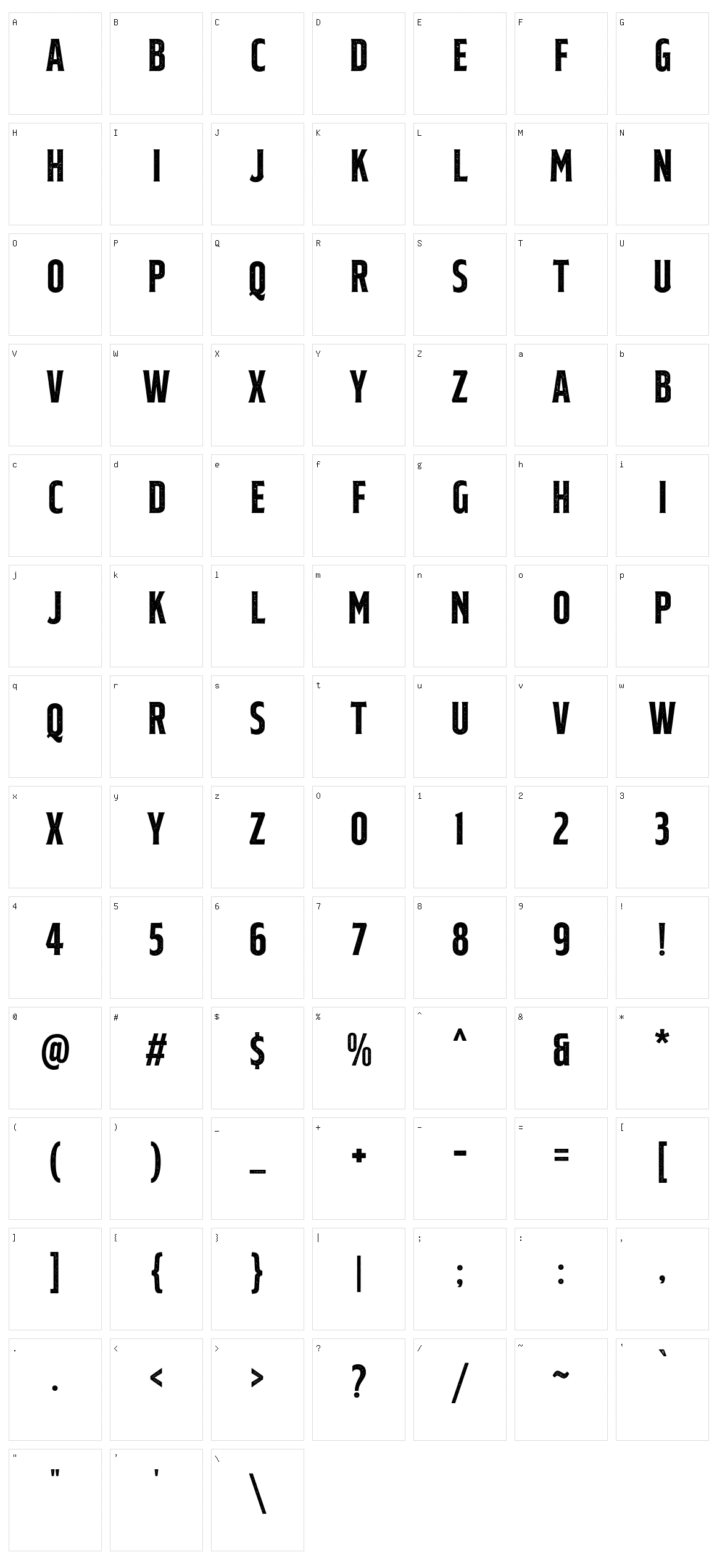
The free font RTCO Flinton is carefully designed by Roams Type, showcasing a thoughtful balance of creativity and usability and falls under the Retro font style. When you download the ZIP file, it contains only 320.11 KB of font files, making it lightweight and quick to download. Please review the license details below to understand permitted usage and distribution rights. If license information is not available, we recommend using this font for personal projects only or contacting the author directly for commercial usage permissions.